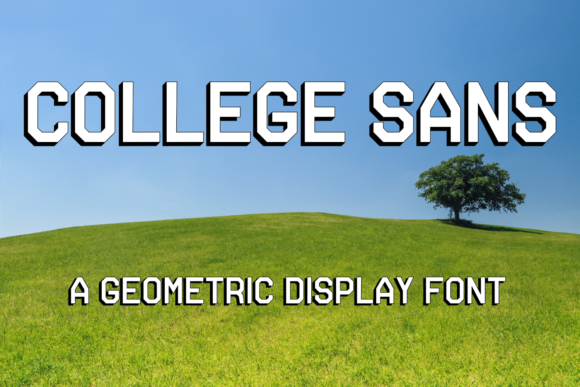
Introducing the College Sans Font Family: A Symphony of Clarity and Distinction
Adorn your designs with the College Sans font family, a geometrically crafted masterpiece that exudes legibility and a crisp, clean aesthetic. Each letterform is meticulously engineered, striking a perfect balance between precision and visual appeal. Whether you seek to craft captivating logos, elegant headings, or eye-catching marketing materials, College Sans empowers you to make a lasting impression.
Immerse yourself in the world of College Sans and discover its versatility. Its clean lines and geometric construction make it the perfect choice for a wide range of design applications. Craft headlines that command attention, body text that invites engagement, and graphics that captivate audiences. College Sans is your gateway to creating designs that resonate and leave an indelible mark.
Step into a world of clarity and distinction with the College Sans font family. Its carefully crafted letterforms ensure effortless readability, making it the ideal choice for projects that demand crisp and legible typography. Whether you're designing for print or digital media, College Sans ensures that your message shines through, reaching your audience with the impact and clarity it deserves.
Embrace the creative possibilities that unfold with the College Sans font family. It's a font that empowers you to express your individuality, to craft designs that reflect your unique vision and style. Unleash your creativity and let College Sans guide you on a journey of design exploration, crafting visual masterpieces that captivate and inspire. Its geometric precision and clean aesthetic provide the perfect foundation for your creative expression.